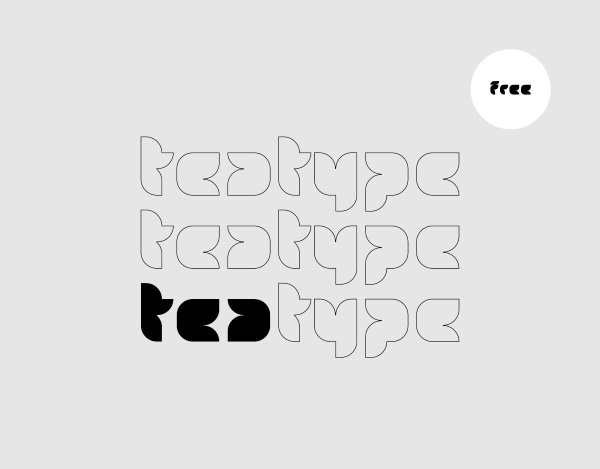
Tea Type Font
Tea by Adilson Gonzales is a free display typeface with an origin story as warm as its name — originally sketched in 2007 as a college project built around a single word, then expanded into a full alphabet over a decade later when the designer rediscovered the work. Ideal for packaging, editorial headlines, branding, and any project that welcomes a touch of quiet originality. Free for personal and commercial use.